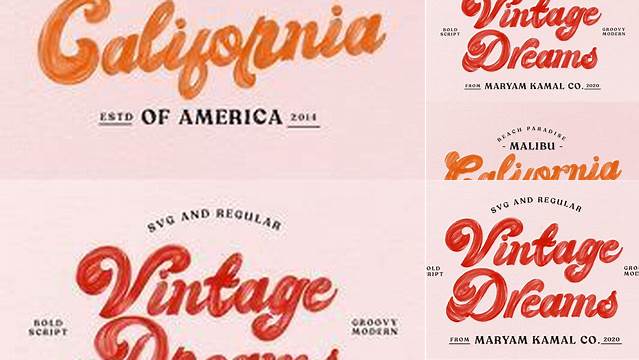
Free Vintage Groovy Font: Modern Dreams Design
Hey guys! Ever get that feeling where you want something old-school cool but with a fresh twist? Well, buckle up because we're diving headfirst into the world of vintage groovy fonts with a modern edge – and the best part? They're free!
What Makes a Font 'Vintage Groovy'?
Before we jump into downloading, let's break down what we mean by "vintage groovy." Think of the 1960s and 70s – bell-bottoms, lava lamps, and psychedelic posters. The fonts from that era were bold, curvy, and full of personality. They had a certain warmth and handmade feel that's hard to replicate with today's ultra-clean, digital designs.
Characteristics of Vintage Groovy Fonts
- Rounded Shapes: Lots of circles and soft edges.
- Bold Strokes: Thick lines that command attention.
- Unique Serifs (Sometimes): Quirky little details that add character.
- Retro Inspiration: A clear nod to the design styles of the past.
- Warm & Friendly Vibe: A sense of approachability and fun.
Why Use a Vintage Groovy Font?
So, why would you want to use a font that looks like it's straight out of a time capsule? Here's the lowdown:
- Stand Out: In a sea of minimalist designs, a vintage font can really make your project pop.
- Evoke Nostalgia: Instantly transport your audience back to a simpler, more carefree time.
- Add Personality: Give your brand or project a unique voice and identity.
- Versatility: Surprisingly, vintage fonts can work well in a variety of contexts, from posters and logos to websites and social media graphics.
Now that we're all on the same page, let's get to the good stuff – where to find these groovy fonts for free!
Finding Free Vintage Groovy Fonts
How to Use Vintage Groovy Fonts in Your Designs
Alright, you've found the perfect font – now what? Here are some tips for using it effectively in your designs:
Pairing with Modern Fonts
Don't be afraid to mix and match! A vintage groovy font can look amazing paired with a clean, modern sans-serif font. This creates a nice contrast and keeps your design from feeling too dated.
Color Palettes
Think about the colors you're using. Earthy tones, mustard yellows, and avocado greens can really enhance the vintage vibe. But don't feel limited – bright, bold colors can also work well, especially if you're going for a psychedelic look.
Text Effects
Experiment with text effects like outlines, shadows, and gradients. These can add depth and dimension to your typography.
Kerning and Leading
Pay attention to kerning (the space between letters) and leading (the space between lines). These small details can make a big difference in the overall readability and visual appeal of your design.
Use in Logos and Branding
A vintage groovy font can be a great choice for logos and branding, especially if you want to convey a sense of nostalgia or fun. Just make sure it's legible and scalable.
Web Design Considerations
When using vintage fonts on the web, consider page load times. Some fonts can be quite large, which can slow down your website. Use web-optimized versions of the fonts and consider using CSS to reduce the file size.
The Allure of Vintage Typography
There's something undeniably appealing about vintage typography. It evokes a sense of nostalgia and craftsmanship that's often missing in today's digital world. By incorporating these fonts into your designs, you can tap into that feeling and create work that resonates with your audience on a deeper level.
Nostalgia Factor
We all have a soft spot for the past, and vintage fonts are a visual reminder of those bygone eras. They can instantly transport us back to our childhood or to a time we've only seen in movies and photographs.
Handcrafted Feel
Before computers, fonts were painstakingly crafted by hand. This gives vintage fonts a unique, imperfect quality that's full of character.
A Break from the Ordinary
In a world of sleek, minimalist designs, vintage fonts offer a refreshing change of pace. They're a way to stand out from the crowd and express your individuality.
Font Pairing Tips for a Groovy Aesthetic
- Pairing with Sans-Serif Fonts: Combine a groovy display font with a clean sans-serif for body text to ensure readability while maintaining a vintage feel.
- Using Script Fonts as Accents: Incorporate script fonts sparingly for headers or callouts to add flair without overwhelming the design.
- Balancing Bold and Light Weights: Mix bold, groovy fonts with lighter-weight fonts to create visual hierarchy and balance.
- Experimenting with Contrasting Styles: Pair a vintage font with a modern geometric font to achieve a unique and eye-catching contrast.
Modern Design Trends Inspired by Vintage Groovy Fonts
- Retro-Inspired Logos: Designers are using vintage fonts to create logos that evoke nostalgia and brand recognition.
- Vintage-Themed Websites: Incorporating vintage fonts into web design can give a site a unique, retro aesthetic.
- Groovy Packaging Designs: Packaging designs that use vintage fonts stand out on shelves and appeal to consumers' sense of nostalgia.
- Vintage Typography in Social Media: Social media graphics with vintage fonts can grab attention and create a retro vibe for branding.
The Psychology Behind Vintage Fonts
- Evoking Nostalgia: Vintage fonts tap into viewers' memories and create a sense of comfort and familiarity.
- Creating Trust: The handcrafted feel of vintage fonts can convey authenticity and trustworthiness.
- Adding Personality: Vintage fonts can add character and uniqueness to a design, making it more memorable.
- Communicating Values: Vintage fonts can communicate values such as tradition, quality, and craftsmanship.
Best Color Palettes to Complement Vintage Groovy Fonts
- Earthy Tones: Combine vintage fonts with earthy colors like brown, olive green, and rust for a natural and organic feel.
- Retro Pastels: Use pastel colors like mint green, baby pink, and sky blue to enhance the retro vibe of vintage fonts.
- Bold Primary Colors: Pair vintage fonts with primary colors like red, blue, and yellow for a playful and energetic design.
- Monochromatic Schemes: Create a sophisticated look by using a monochromatic color scheme with varying shades of a single color.
How to Use Vintage Groovy Fonts in Branding Materials
- Business Cards: Use vintage fonts for business cards to create a memorable and unique first impression.
- Letterheads: Incorporate vintage fonts into letterheads to add a touch of elegance and sophistication to your correspondence.
- Marketing Collateral: Use vintage fonts in brochures, flyers, and posters to grab attention and create a retro vibe.
- Email Signatures: Add vintage fonts to your email signatures to personalize your communications and reinforce your brand identity.
Incorporating Vintage Groovy Fonts into Website Design
- Headers and Titles: Use vintage fonts for website headers and titles to create a distinct and memorable look.
- Navigation Menus: Incorporate vintage fonts into navigation menus to enhance the user experience and add a retro touch.
- Call-to-Action Buttons: Use vintage fonts for call-to-action buttons to make them stand out and encourage user engagement.
- Blog Posts: Incorporate vintage fonts into blog posts to create a unique and engaging reading experience.
Creating Unique Social Media Graphics with Vintage Groovy Fonts
- Instagram Posts: Use vintage fonts in Instagram posts to grab attention and create a retro vibe for your branding.
- Facebook Ads: Incorporate vintage fonts into Facebook ads to make them stand out and attract potential customers.
- Twitter Banners: Use vintage fonts in Twitter banners to create a cohesive and visually appealing profile.
- Pinterest Pins: Incorporate vintage fonts into Pinterest pins to make them more shareable and visually engaging.
DIY Projects Using Vintage Groovy Fonts
- Custom T-Shirts: Design custom T-shirts using vintage fonts to express your unique style and personality.
- Home Décor: Create home décor items such as wall art and posters using vintage fonts to add a retro touch to your living space.
- Greeting Cards: Design personalized greeting cards using vintage fonts to make your messages more heartfelt and memorable.
- Party Invitations: Create party invitations using vintage fonts to set the tone for a fun and retro celebration.
The Evolution of Groovy Fonts Through the Decades
- 1960s Groovy Fonts: Explore the psychedelic and experimental fonts that defined the 1960s.
- 1970s Groovy Fonts: Discover the bold and expressive fonts that characterized the 1970s.
- 1980s Groovy Fonts: Learn about the new wave and synth-pop influences on groovy fonts in the 1980s.
- Modern Groovy Fonts: See how contemporary designers are reinterpreting and updating classic groovy fonts for today's designs.
Common Mistakes to Avoid When Using Vintage Groovy Fonts
- Overusing Decorative Fonts: Avoid using too many decorative vintage fonts in a single design, as it can become overwhelming.
- Ignoring Legibility: Ensure that your vintage fonts are legible and easy to read, even at small sizes.
- Not Balancing with Modern Elements: Balance vintage fonts with modern design elements to create a cohesive and balanced look.
- Overlooking Kerning and Spacing: Pay attention to kerning and spacing to ensure that your vintage fonts are visually appealing.
Where to Find Inspiration for Vintage Groovy Font Designs
- Vintage Magazines: Look through vintage magazines for inspiration on how to use groovy fonts in different contexts.
- Retro Posters: Study retro posters and advertisements to see how designers used vintage fonts to create eye-catching visuals.
- Online Archives: Explore online archives of vintage design to discover unique and creative ways to use groovy fonts.
- Design Blogs and Websites: Follow design blogs and websites to stay up-to-date on the latest trends in vintage typography.
Customizing and Modifying Free Vintage Groovy Fonts
- Adding Effects: Experiment with adding effects like shadows, outlines, and textures to customize your vintage fonts.
- Adjusting Weights: Adjust the weights of your vintage fonts to create visual hierarchy and emphasis in your designs.
- Creating Ligatures: Design custom ligatures to add a unique and personalized touch to your typography.
- Modifying Shapes: Modify the shapes of your vintage fonts to create a custom and distinctive look.
The Legal Aspects of Using Free Vintage Groovy Fonts
- Understanding Font Licenses: Learn about the different types of font licenses and what they allow you to do with free fonts.
- Commercial vs. Personal Use: Determine whether a free font is licensed for commercial or personal use, and respect the terms of the license.
- Attribution Requirements: Check whether a free font requires attribution, and provide proper credit to the font designer if necessary.
- Avoiding Copyright Infringement: Ensure that you are not infringing on any copyrights when using free fonts in your designs.
How Vintage Groovy Fonts Can Enhance User Experience
- Creating Emotional Connections: Vintage fonts can evoke emotions and create connections with users by tapping into their memories and experiences.
- Improving Brand Recall: Vintage fonts can make a brand more memorable and recognizable by creating a unique and distinctive identity.
- Adding Personality to Interfaces: Vintage fonts can add personality and character to user interfaces, making them more engaging and enjoyable to use.
- Setting a Retro Tone: Vintage fonts can set a retro tone for a website or application, transporting users back to a specific era or time period.
The Future of Vintage Groovy Fonts in Design
- Blending with Modern Styles: Expect to see vintage groovy fonts increasingly blended with modern design styles to create unique and innovative visuals.
- Increased Digital Accessibility: Designers will focus on making vintage fonts more digitally accessible by optimizing them for web and mobile use.
- Personalized Typography: The rise of personalized typography will allow designers to create custom vintage fonts tailored to specific brands and projects.
- AI-Driven Font Design: Artificial intelligence may play a role in the creation of new vintage fonts, generating unique and innovative designs based on historical styles.
Exploring the World of Psychedelic Fonts
- Origin of Psychedelic Fonts: Learn about the origins of psychedelic fonts in the counterculture movement of the 1960s.
- Characteristics of Psychedelic Fonts: Discover the defining characteristics of psychedelic fonts, such as distorted shapes, vibrant colors, and swirling patterns.
- Notable Psychedelic Fonts: Explore some of the most iconic and influential psychedelic fonts of the era.
- Modern Interpretations of Psychedelic Fonts: See how contemporary designers are reinterpreting and updating psychedelic fonts for modern designs.
The Impact of Vintage Fonts on Modern Advertising
- Creating Nostalgia: Vintage fonts can evoke nostalgia and create an emotional connection with viewers in advertising campaigns.
- Standing Out from the Crowd: Vintage fonts can make advertisements stand out from the crowd by offering a unique and unexpected visual style.
- Communicating Authenticity: Vintage fonts can convey a sense of authenticity and trustworthiness in advertising, appealing to consumers' desire for genuine products and services.
- Targeting Specific Demographics: Vintage fonts can be used to target specific demographics, such as baby boomers and millennials, who have different associations with vintage styles.
Tips for Creating a Cohesive Design with Vintage Fonts
- Establish a Visual Hierarchy: Use vintage fonts strategically to create a clear visual hierarchy in your designs, guiding viewers' eyes and emphasizing important elements.
- Choose a Limited Palette: Stick to a limited color palette to maintain consistency and avoid overwhelming the design with too many competing colors.
- Use Negative Space Effectively: Use negative space to create balance and visual breathing room in your designs, preventing them from feeling cluttered or overwhelming.
- Test Your Design on Different Devices: Test your design on different devices to ensure that your vintage fonts are legible and visually appealing across all platforms.
Resources for Learning More About Vintage Typography
- Books on Typography: Read books on typography to learn about the history, principles, and techniques of font design.
- Online Courses: Take online courses on typography to gain a deeper understanding of vintage fonts and how to use them effectively.
- Design Communities: Join design communities to connect with other designers, share your work, and get feedback on your vintage typography projects.
- Typography Museums: Visit typography museums to see examples of vintage fonts and learn about the history of typography.
Mastering the Art of Font Pairing with Groovy Fonts
- Understanding Font Personalities: Learn about the different personalities of fonts and how they can be used to convey different emotions and messages.
- Contrasting vs. Complementary Pairings: Experiment with both contrasting and complementary font pairings to see what works best for your designs.
- Creating Visual Harmony: Strive to create visual harmony in your font pairings by choosing fonts that complement each other in terms of weight, style, and x-height.
- Testing Your Font Pairings: Test your font pairings on different devices and in different contexts to ensure that they are legible and visually appealing in all situations.
So, there you have it! A comprehensive guide to the world of free vintage groovy fonts. Now go forth and create some seriously rad designs!